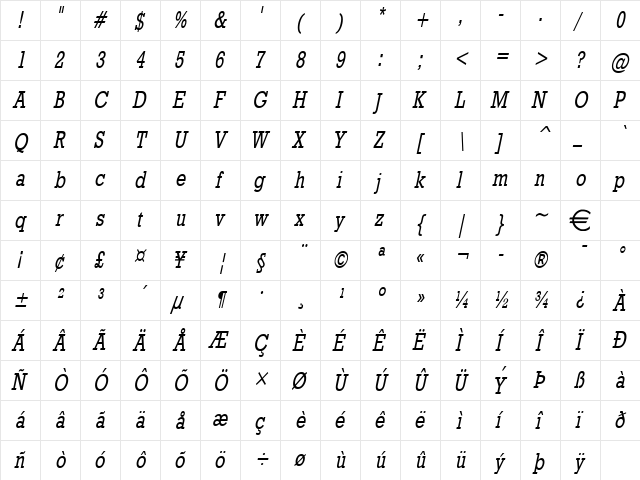
Geo986Thin Italic
Design Context for Geo986Thin Typeface
Geo986Thin offers clean, dependable letterforms without strong stylistic allegiance, making it a practical choice for designers who need flexibility. The slanted form adds forward momentum and visual energy. Its slender proportions lend an understated elegance to any composition.